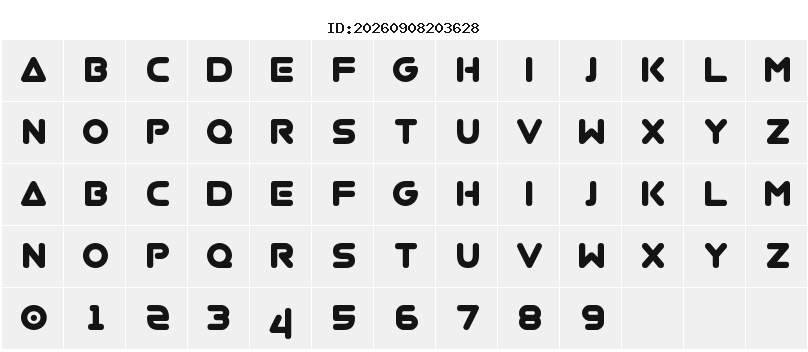
Virgo 01 Preview
• Font Name: Virgo 01
• Full Font Name: Virgo 01
About Virgo 01.ttf
Virgo 01.ttf is a modern, elegant sans-serif font designed for ultimate readability and visual harmony. Perfect for branding, headlines, web design, and print materials.